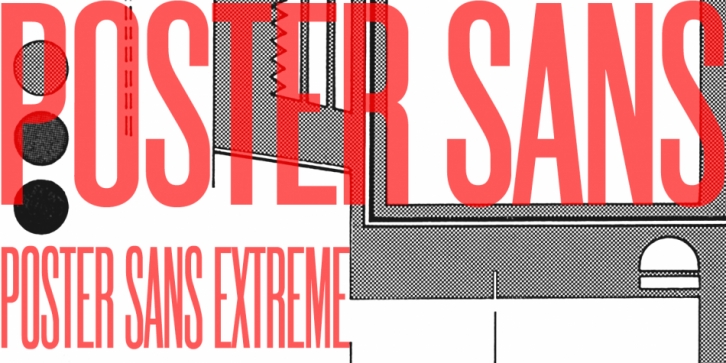
Poster Sans is a display sans font family. This typeface has four styles  and was published by K-Type.
The Poster Sans display fonts have the enduring functionality of vintage condensed grotesques. They are loosely based on Ludlow 6-EC, and perfect for signs and posters. The Basic Package includes the  Regular and Bold weights, and also a useful Outline version. Poster Sans Extreme may hold the record for the slimmest usable font available.
The latest versions of the Regular, Bold and Extreme weights offer improved outlines and now include a full compliment of Latin Extended-A European accented characters.